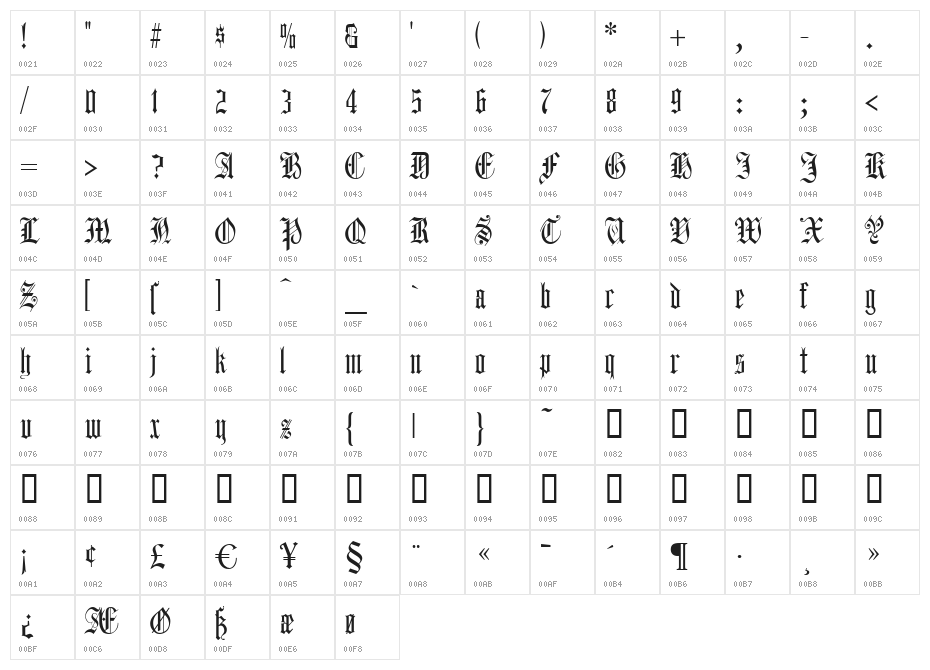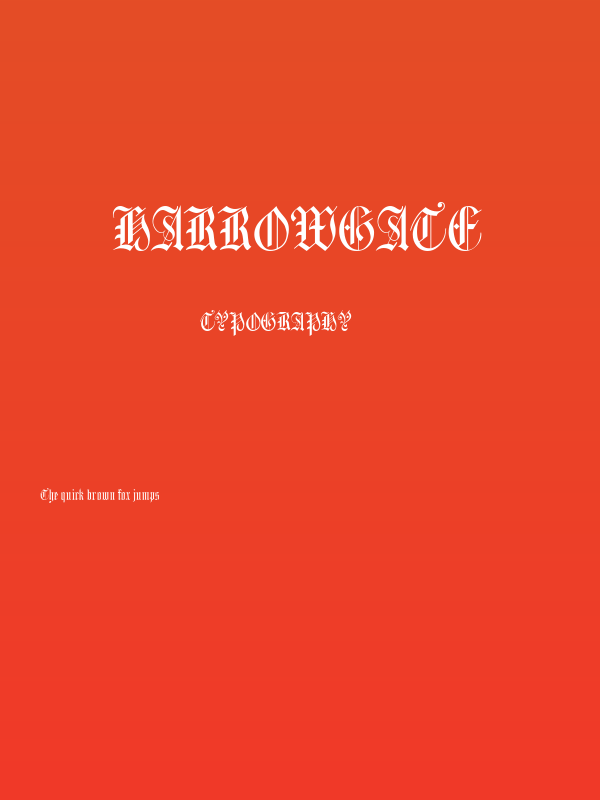
Harrowgate Font
✎ Gothic
Harrowgate Description
This font exudes a classic and ornate style, reminiscent of traditional Blackletter typefaces. It features intricate and sharp serifs with a high degree of contrast between thick and thin strokes. The characters are highly decorative, with elaborate swashes and flourishes that give it a historical and formal appearance. The uppercase letters are particularly elaborate, with unique embellishments that enhance their visual impact. The lowercase letters maintain the same decorative style, ensuring consistency across the typeface. The numerals and special characters are equally ornate, making this font suitable for projects that require a touch of elegance and tradition.
| Categories | Gothic |
| Overall Style | Classic |
| Use Case | Headlines, Logos, Decorative text |
| Proposed Projects | Ideal for certificates, invitations, historical documents, and branding that requires a classic and formal touch. |